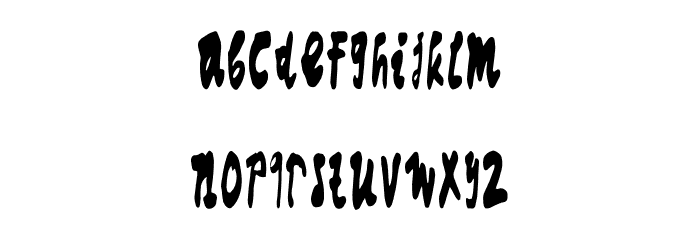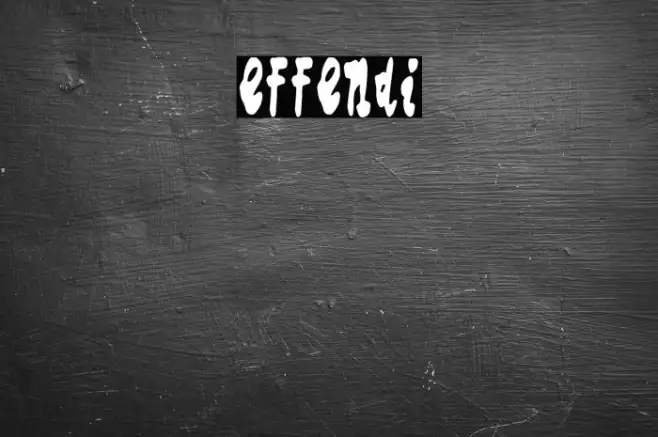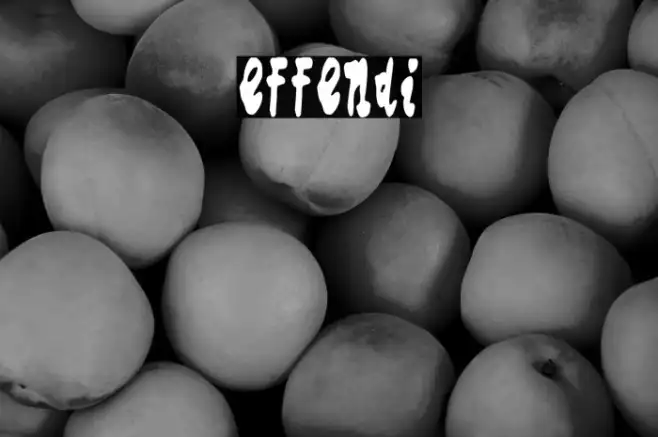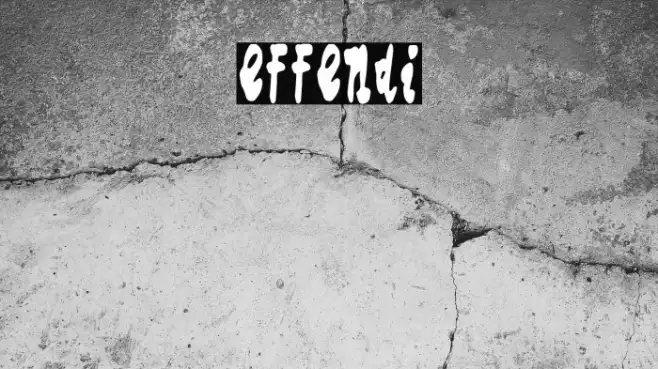
effendi Font
This font features a bold and expressive style with a hand-drawn appearance. The characters are irregular and dynamic, giving a sense of movement and energy. The uppercase letters are particularly bold, with thick strokes and a slightly uneven baseline, adding to the handcrafted feel. The lowercase letters maintain this playful irregularity, with some characters having unique flourishes. The numbers are consistent with the overall style, bold and slightly quirky. This font includes a set of special characters that match the bold and artistic theme, making it versatile for creative projects.
A bold, hand-drawn font with an expressive and dynamic style.
- Proposed Projects: Ideal for artistic projects, posters, branding, and any design that requires a bold, handcrafted look.
- Use Case: Logos, Posters, Creative projects